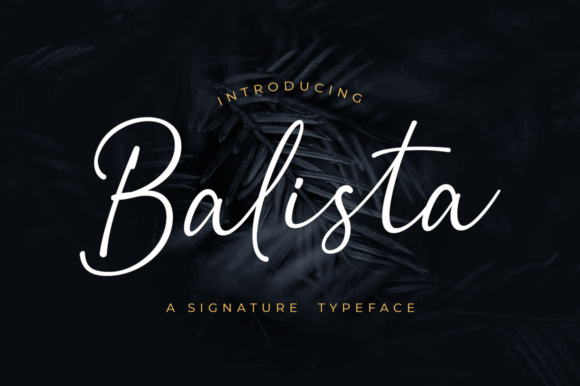
Introducing Balista Font: The Epitome of Elegance and Versatility
In the realm of typography, few fonts manage to strike a balance between elegance and versatility. Balista Font, however, stands out as a beacon of sophistication, seamlessly blending classy calligraphic influences with a contemporary twist. This exceptional handwritten font has been crafted to cater to a wide array of creative projects, from professional letterheads and titles to stylish stationery.
The Genesis of Balista Font
Balista Font is the brainchild of meticulous designers who sought to create a typeface that embodies both refinement and modernity. The journey of its creation involved a deep dive into the world of calligraphy, where the fluidity of handwritten scripts meets the precision of digital typography. The result is a font that not only pays homage to traditional calligraphic techniques but also introduces a fresh, contemporary vibe.
Key Features of Balista Font
• Elegant Calligraphic Influences: Balista Font boasts fluid strokes and graceful curves, reminiscent of high-end calligraphy. Each letter is crafted to convey a sense of luxury and sophistication.
• Contemporary and Fresh: What sets Balista apart is its ability to feel modern and relevant. The font’s design ensures it doesn’t get lost in traditional calligraphy but stands out with a unique personality.
• Versatility: One of the defining characteristics of Balista Font is its incredible versatility. It can be used across a spectrum of projects, from formal documents like letterheads and titles to more casual, creative endeavors such as stationery and personal cards.
• Wide Range of Applications: Whether you’re a graphic designer looking for the perfect font for a client’s branding, a stationery designer aiming to create something memorable, or a crafty individual working on personal projects, Balista Font offers the flexibility and elegance you need.
Applications of Balista Font
The adaptability of Balista Font makes it an invaluable asset for various applications. Here are some of the areas where this font truly shines:
1. Professional Branding and Letterheads
For businesses looking to make a statement, Balista Font offers the perfect blend of professionalism and elegance. Its unique yet legible design ensures that your brand stands out in written communications.
2. Stationery and Personal Cards
For personal projects, Balista brings a touch of class and sophistication. Whether it’s wedding invitations, personal greeting cards, or bespoke stationery, this font adds an element of luxury and thoughtfulness.
3. Titles and Headings
In editorial design, Balista Font can be used to create stunning titles and headings. Its calligraphic flair adds a decorative element that draws the reader’s eye, making it perfect for magazines, blogs, and books.
4. Digital Media
In the digital realm, Balista Font can elevate your content, making it more engaging and visually appealing. It’s ideal for website headers, social media graphics, and digital advertising, where standing out is crucial.
Why Choose Balista Font?
With an abundance of fonts available, what makes Balista stand out? Here are a few compelling reasons:
• Unique yet Legible: Balista strikes a perfect balance between uniqueness and readability, making it suitable for both display purposes and body text.
• Time-Saving: With Balista, designers can save time that would otherwise be spent on custom calligraphy, without compromising on the aesthetic appeal.
• Cross-Platform Compatibility: This font is designed to work seamlessly across various platforms and applications, ensuring consistency in your design work.
• Support for Multiple Languages: Balista Font comes with support for multiple languages, making it a versatile tool for global projects.
Balista Font is more than just a typeface; it’s a design statement. Its elegant calligraphic influences, combined with a modern and fresh appeal, make it an outstanding choice for designers and crafty individuals alike. Whether you’re working on professional branding, personal stationery, or digital media, Balista offers the versatility and sophistication you need to elevate your projects.
Embracing Balista Font means embracing a world of elegance and creativity. It’s about choosing a font that doesn’t just convey your message but does so with style and grace. As the world of design continues to evolve, fonts like Balista stand at the forefront, pushing boundaries and redefining what it means to communicate effectively and beautifully.
Final Thoughts
In the end, Balista Font isn’t just a tool; it’s a partner in your creative journey. It invites you to explore new possibilities, experiment with elegance, and push the limits of what’s possible with typography. So, dive into the world of Balista, and discover how this truly outstanding handwritten font can simplify elegance for you.